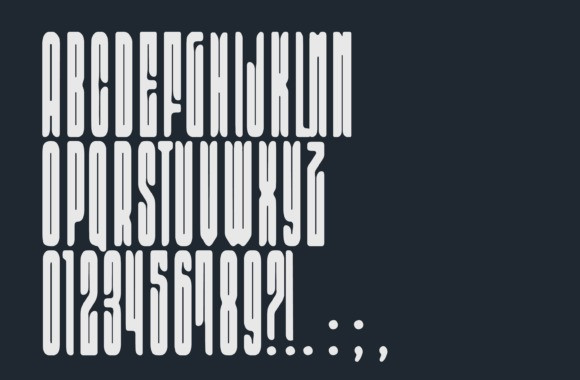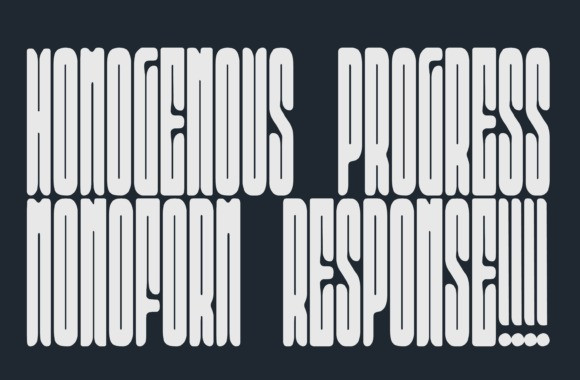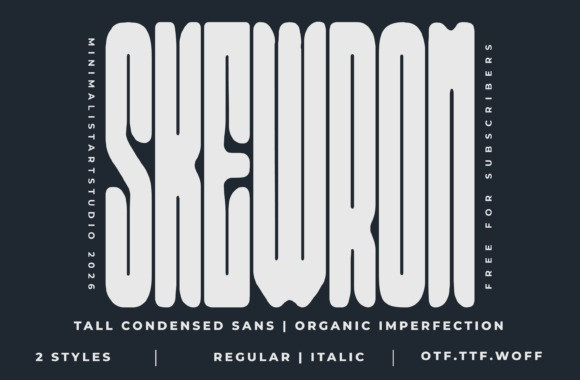
SKEWROM FONT
Skewrom Font is a bold tall condensed display font designed for modern editorial design, high-impact posters, and strong branding visuals. Its unique organic distortions and condensed vertical rhythm create a powerful typographic presence that immediately captures attention. Perfect for fashion editorials, magazine headlines, posters, branding projects, and contemporary graphic design, Skewrom delivers a striking balance between modern structure and expressive character.
The font includes Regular and Italic styles, allowing designers to create dynamic layouts and versatile typographic compositions. Skewrom works exceptionally well for logos, advertising graphics, street-style visuals, social media content, and creative studio projects where strong typography is essential.
With its clean yet experimental aesthetic, Skewrom is an excellent choice for designers looking to create bold headlines, stylish branding, editorial layouts, and modern poster typography that stands out in both print and digital environments.